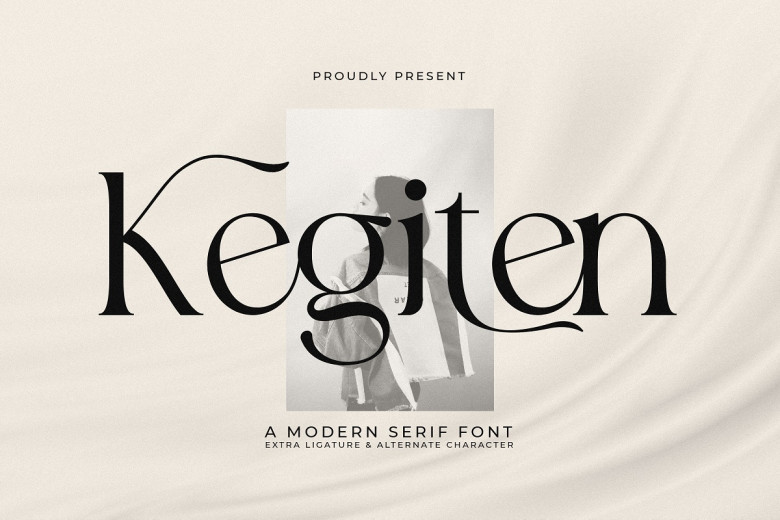
Kegiten Font
Kegiten is a sans-serif design font that, with its sleek lines and gentle curves, is right on the mark for the present. Especially fitting for fashion magazine designs, luxury brands, and web fonts, the refined appearance complements each design. Select Special Kegiten for a color that will upgrade your creative masterpieces with a stylish and sleek look.
Kegiten Serif Font